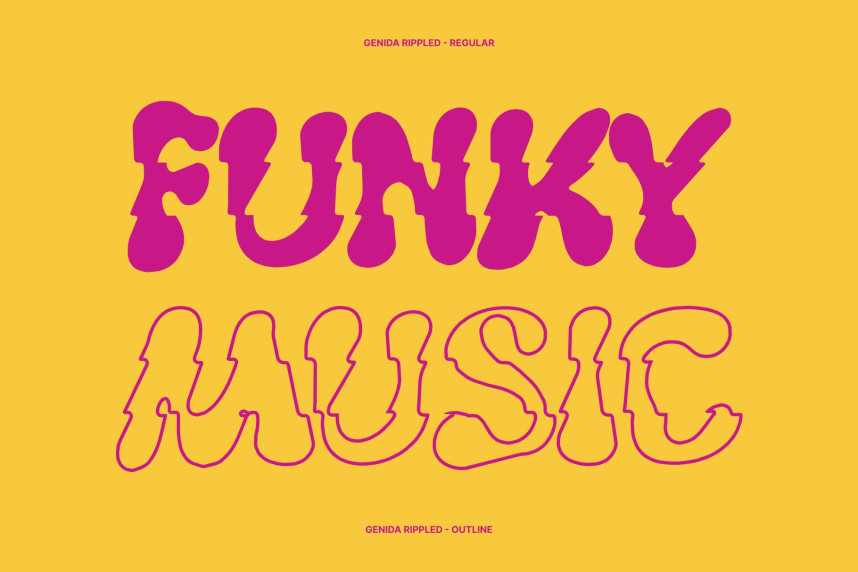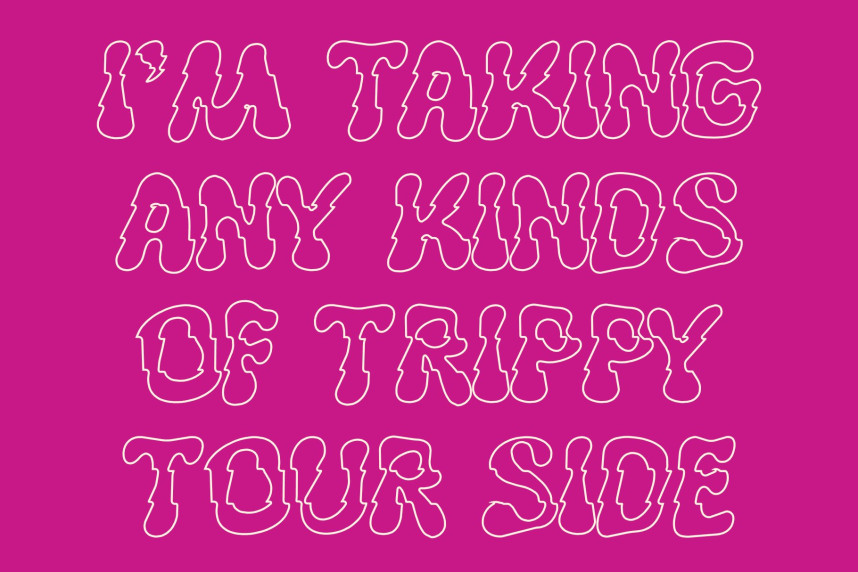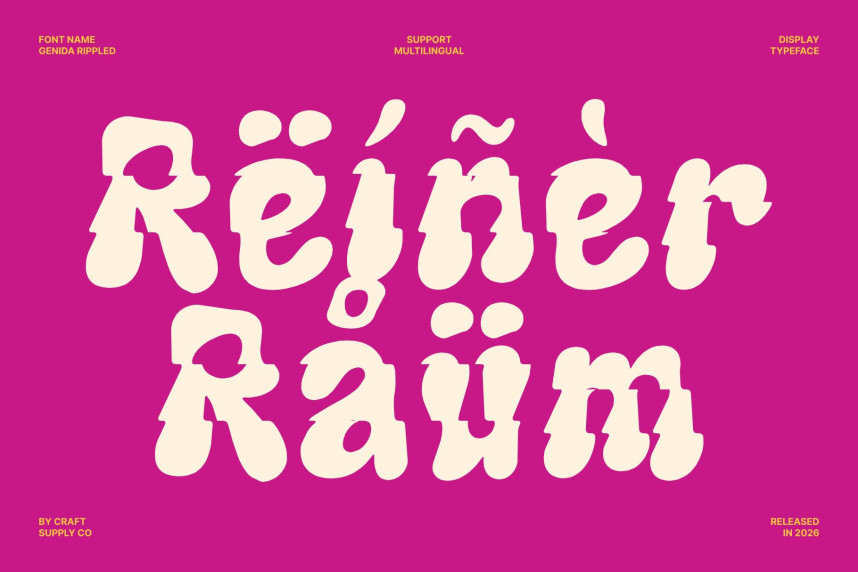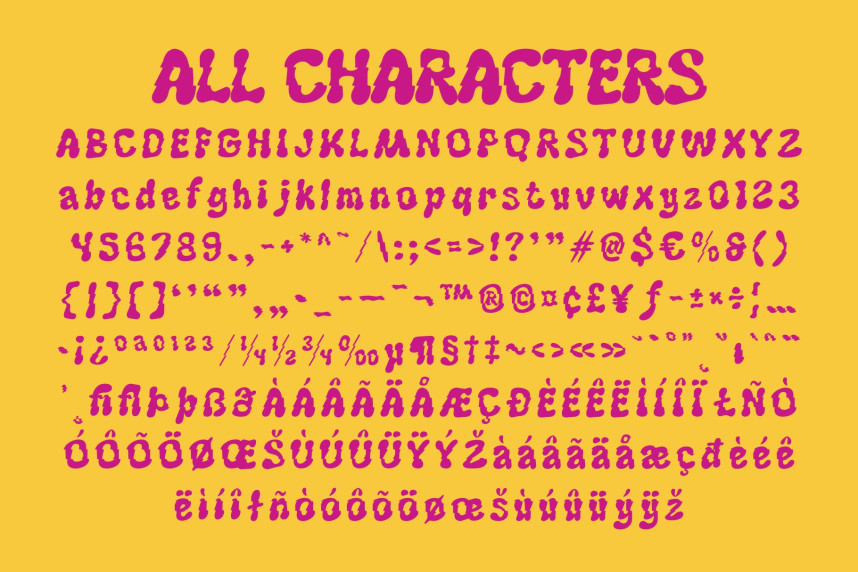
Genida Rippled Font
Genida Rippled Font – Funky Typeface with Psychedelic Liquid Energy
Psychedelic Vibes in Every Letter
This is a funky and trippy display typeface designed to inject bold personality and artistic freedom into every composition. Inspired by psychedelic visuals and expressive typography, this font transforms text into a vibrant visual experience. Its unconventional shapes and playful rhythm create a lively atmosphere that instantly captures attention and sparks curiosity. The result is a typeface that feels experimental, artistic, and full of creative spirit.